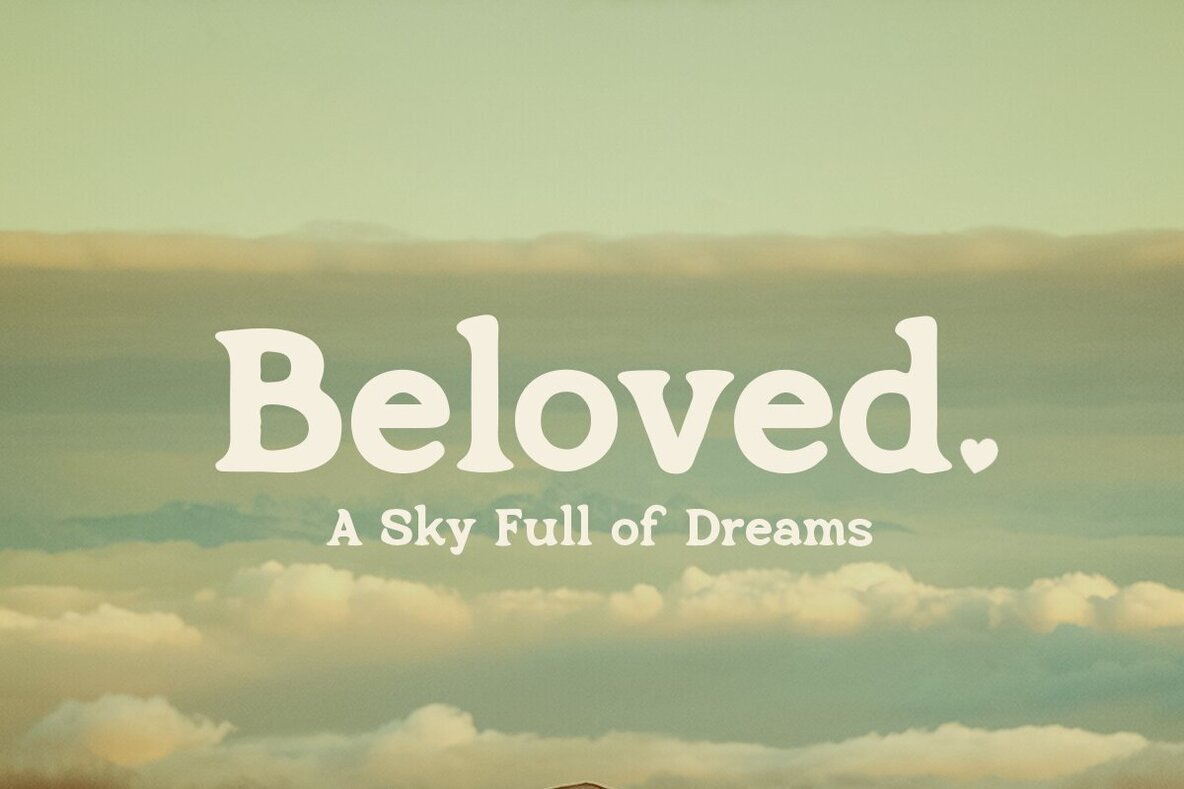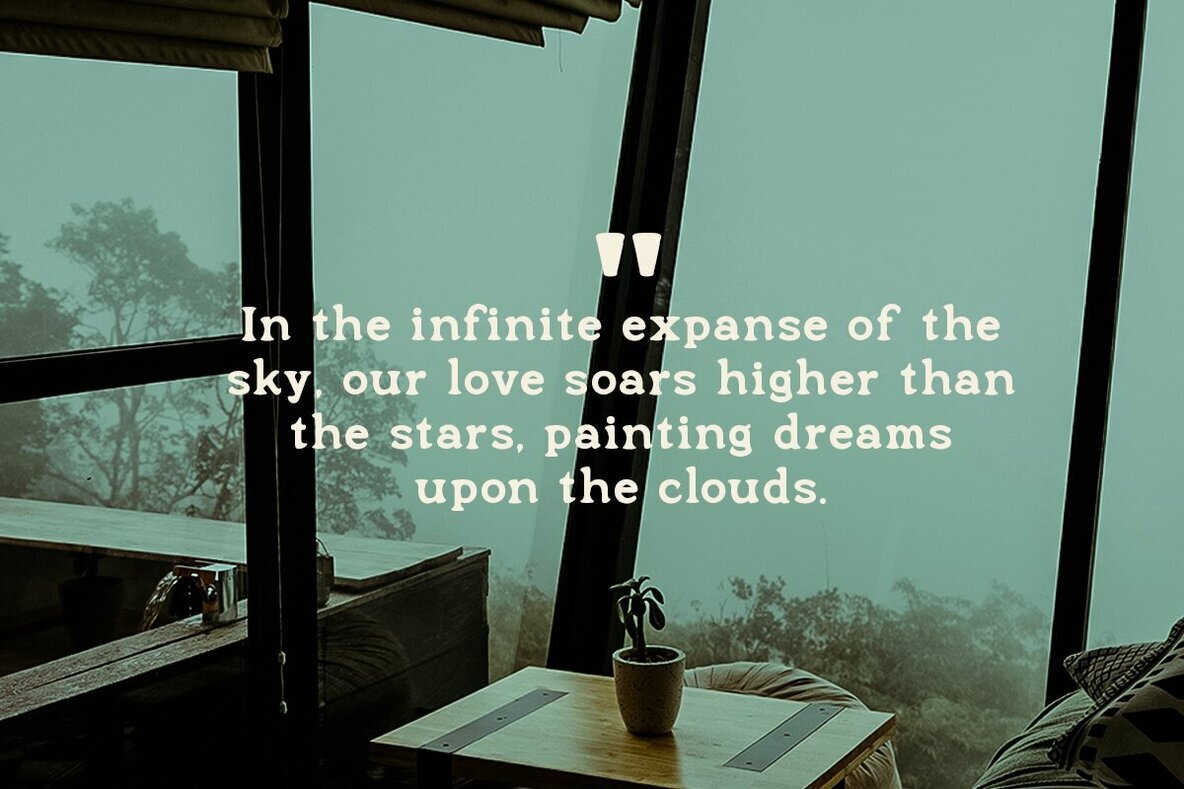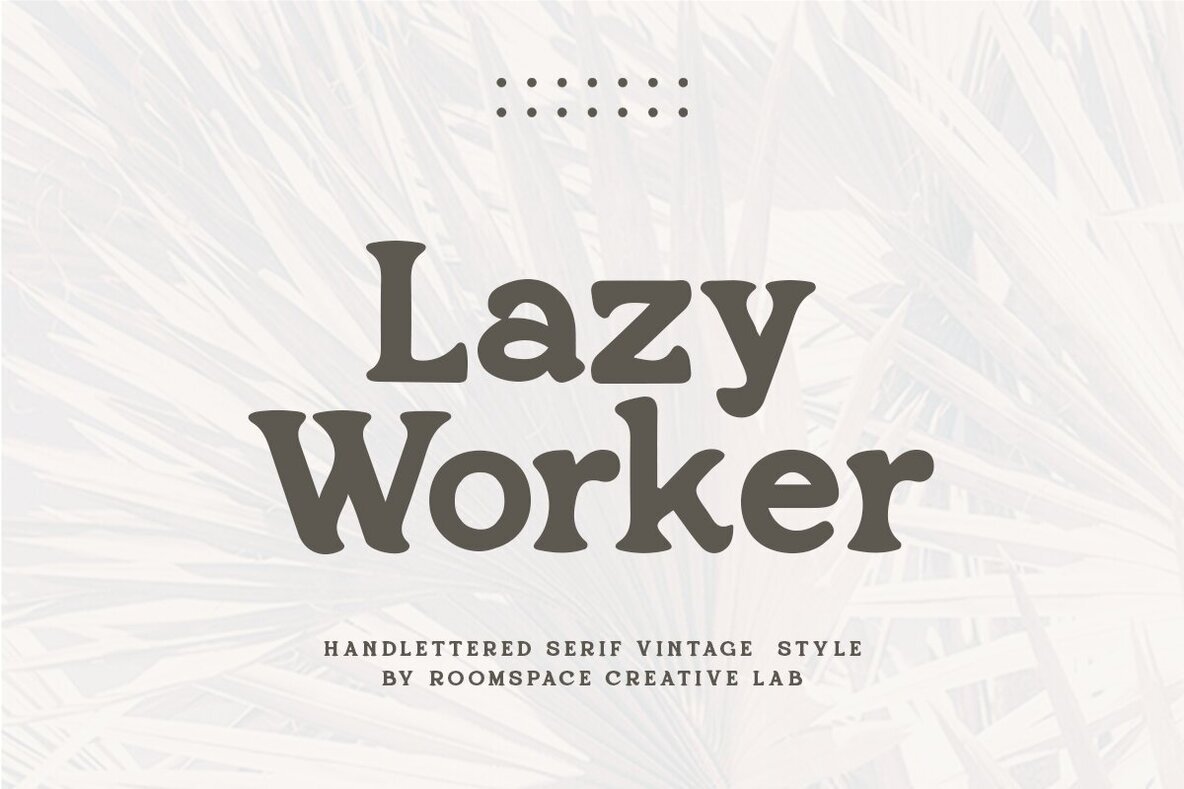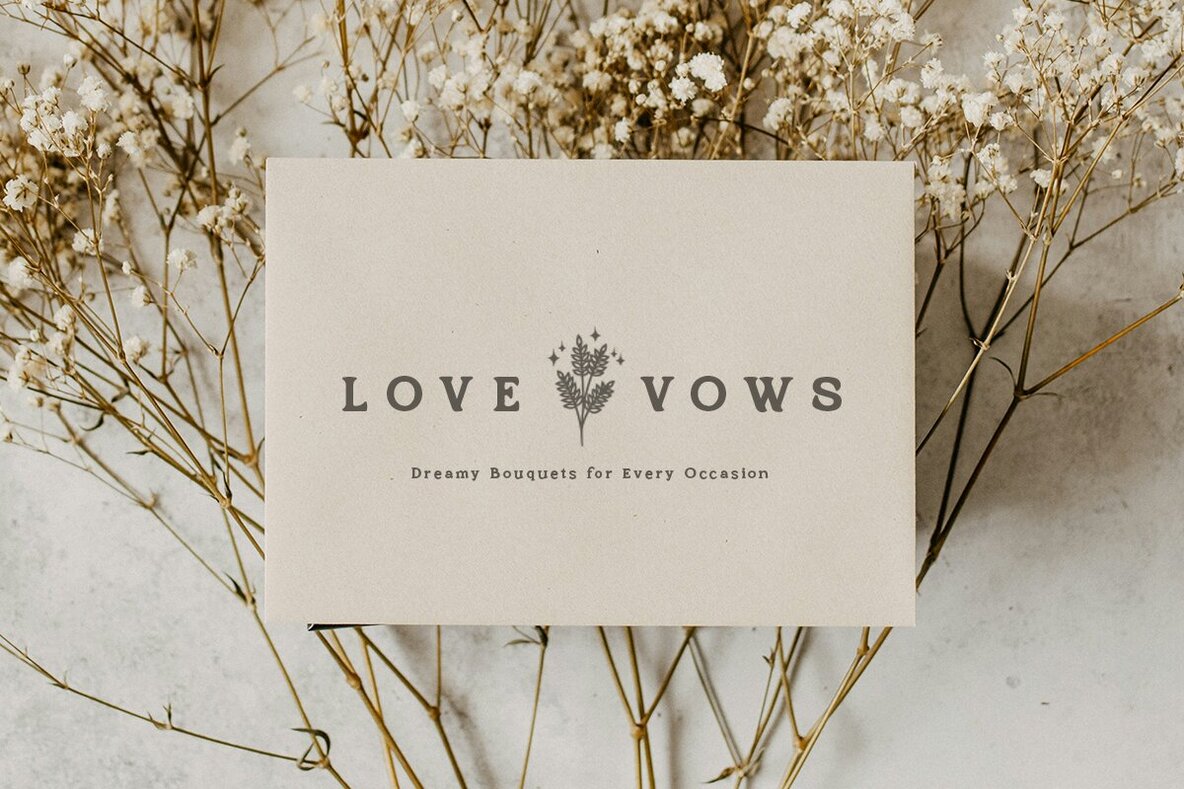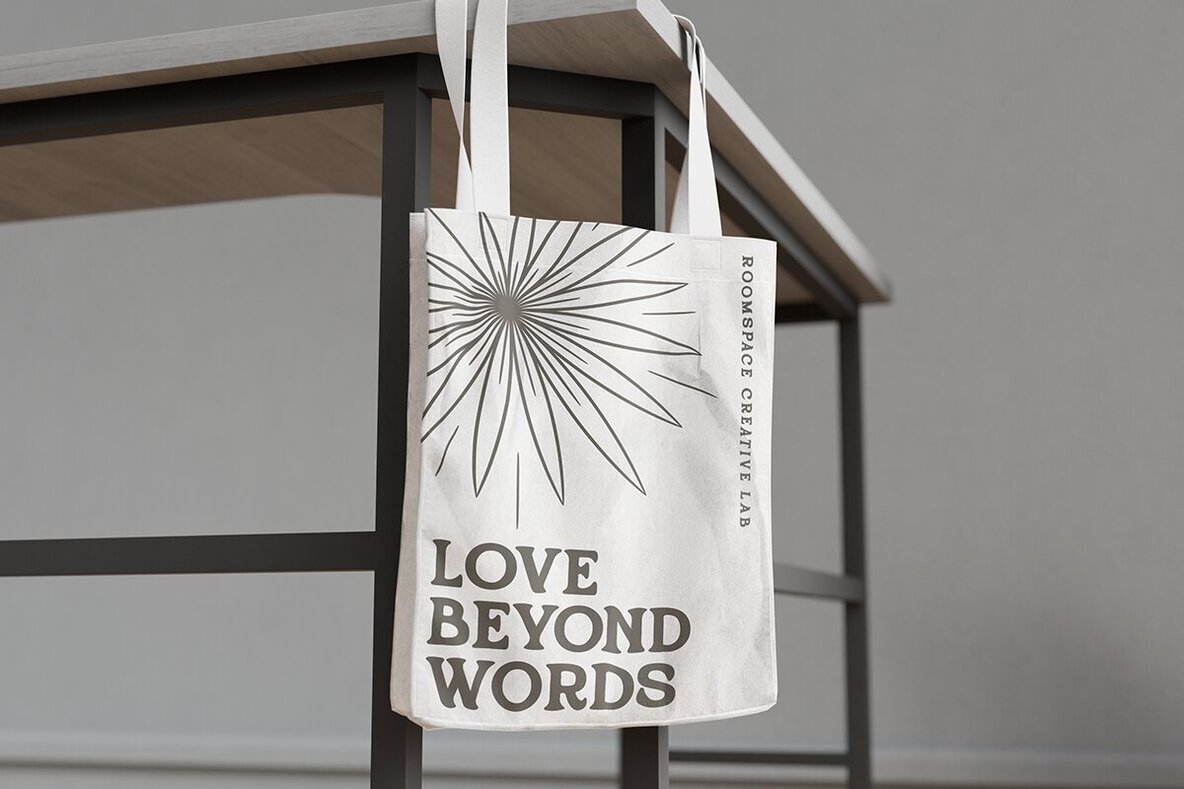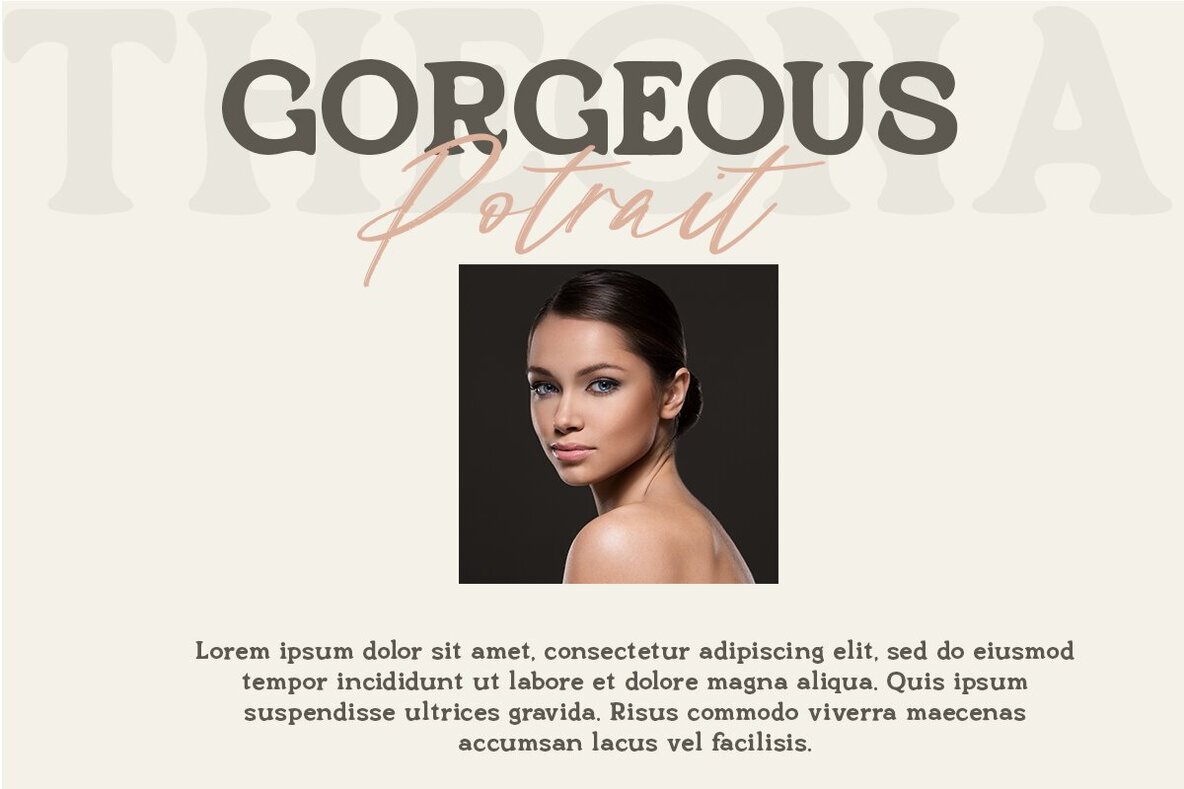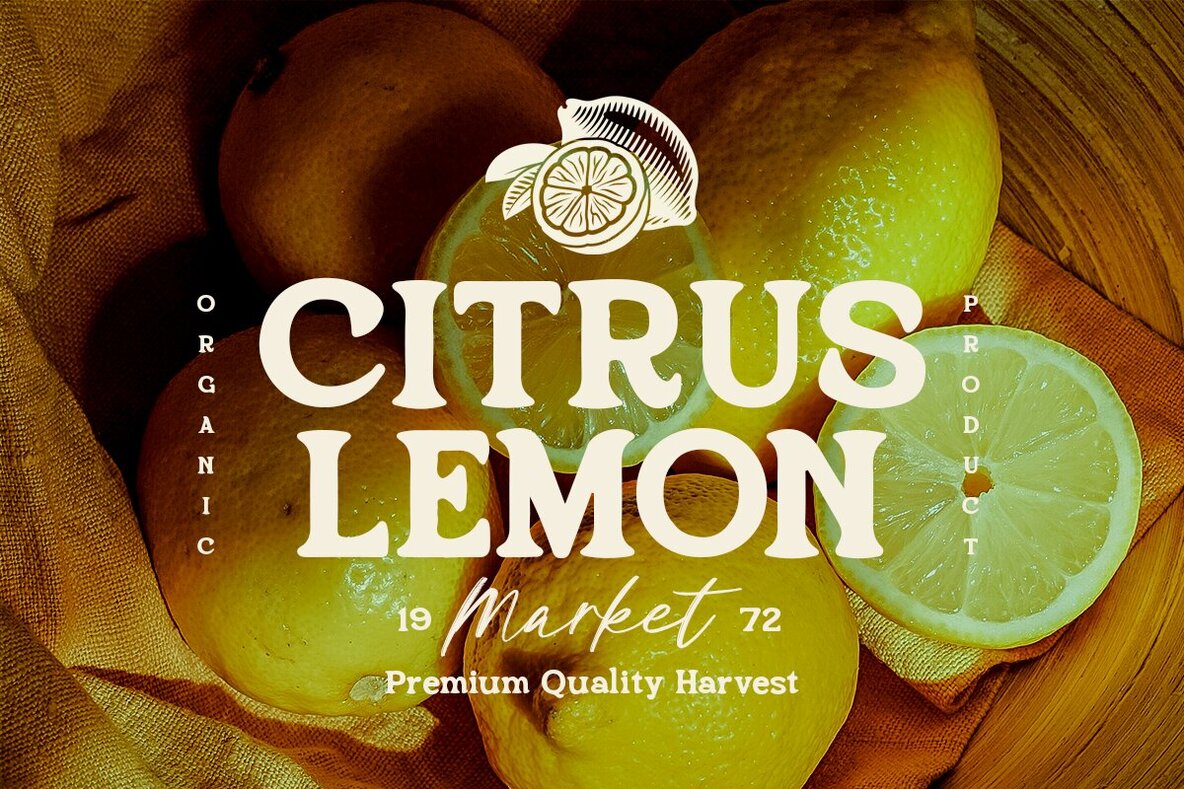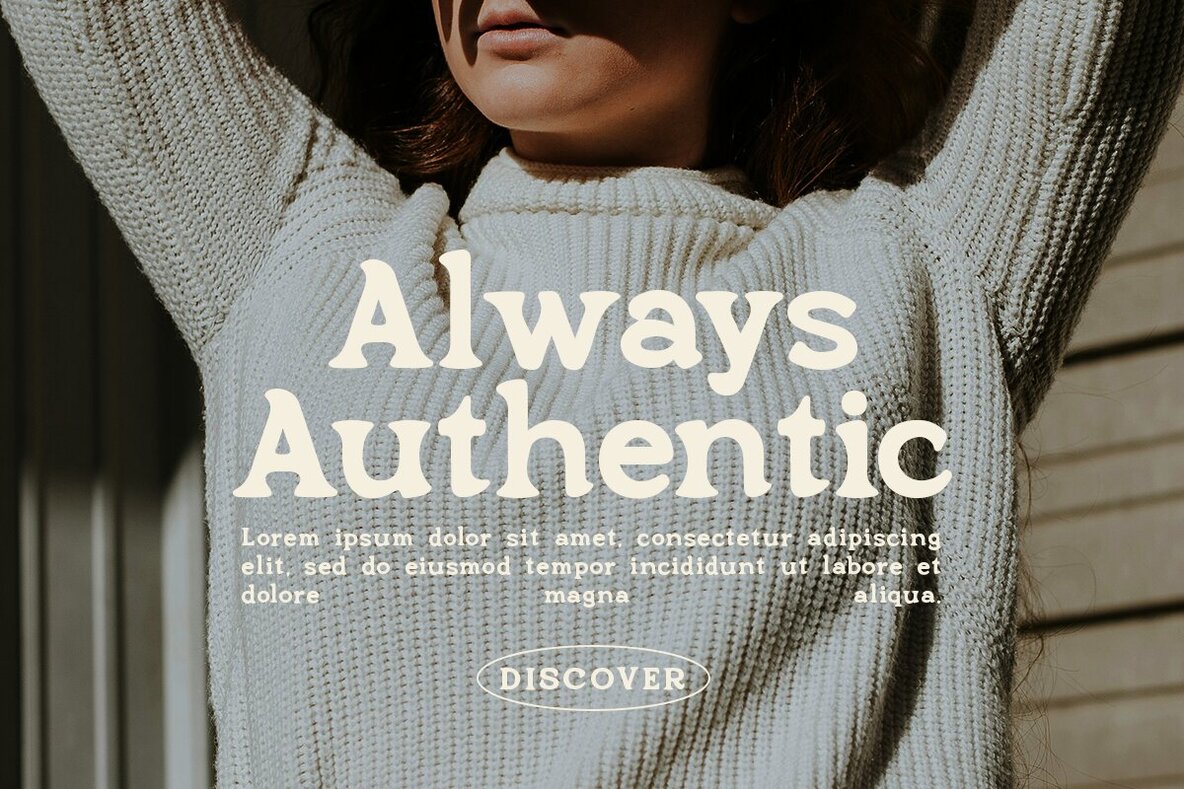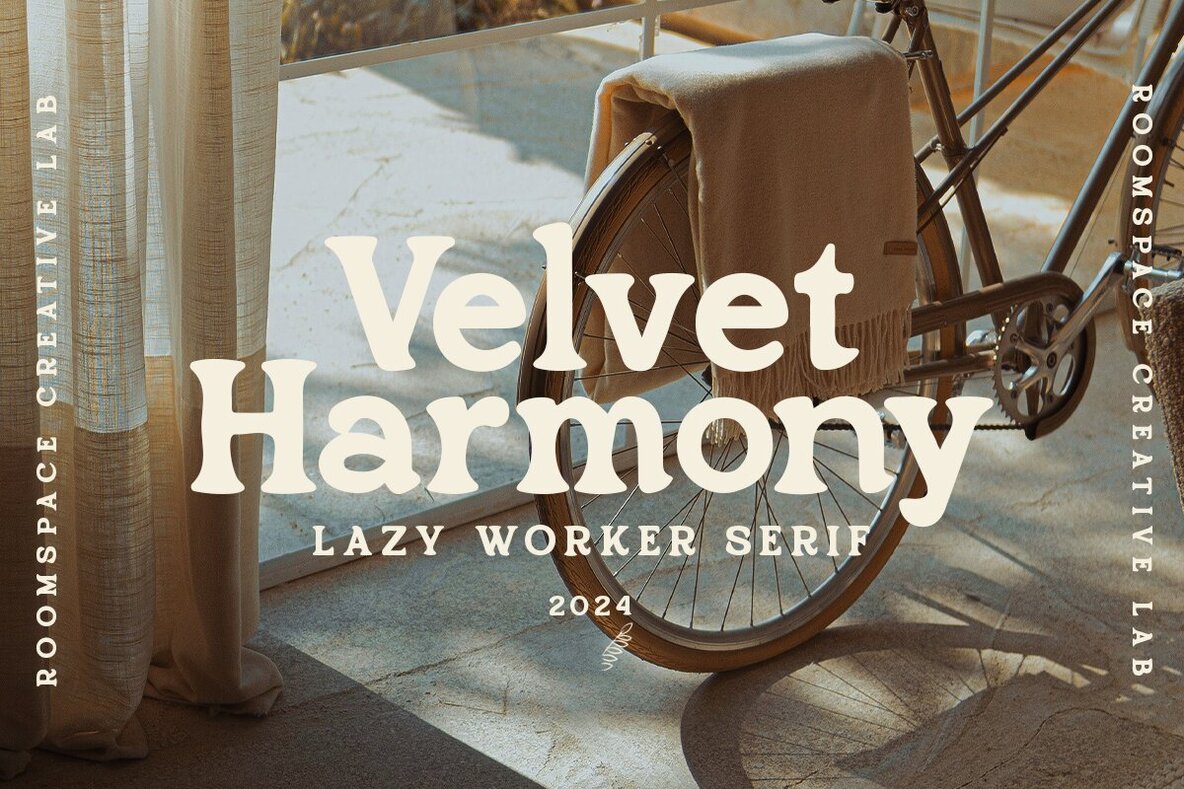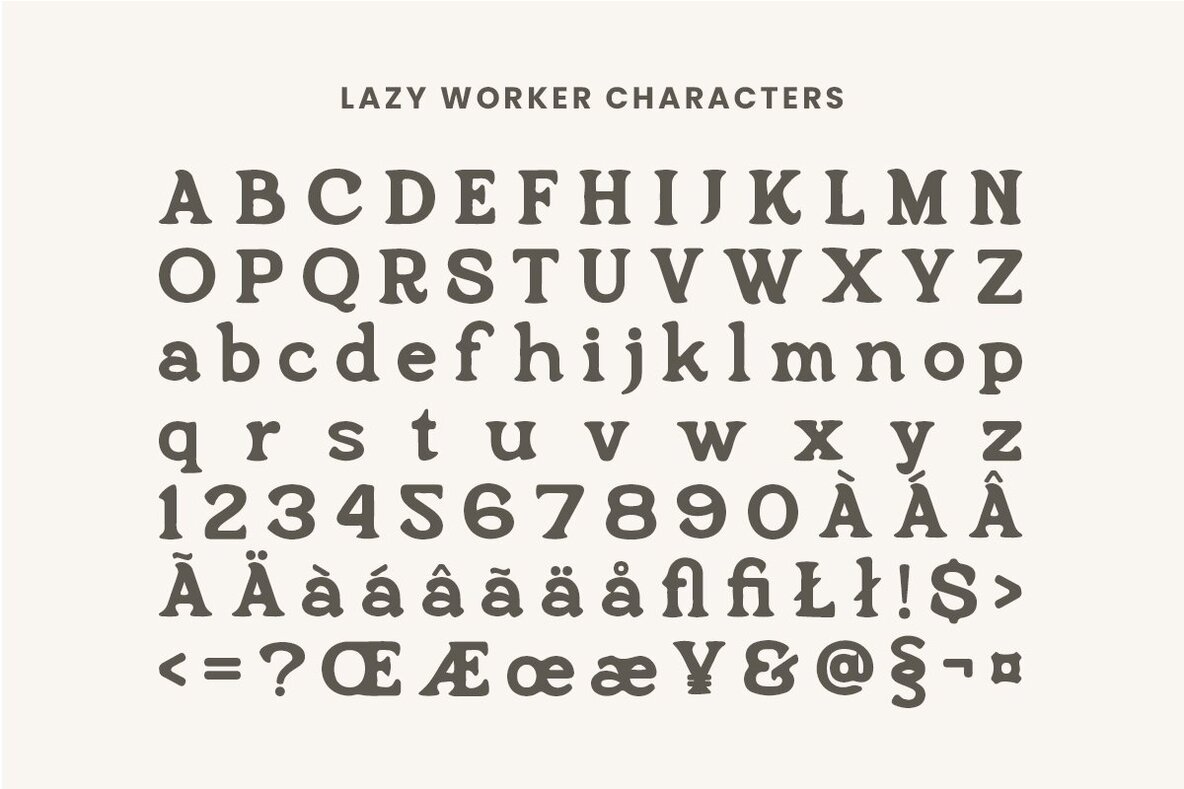
Lazy Worker Font
Lazy Worker
Lazy Worker is a unique handwritten serif font that beautifully merges modern and retro aesthetics. Meticulously crafted by hand, it adds a personal touch to your design projects, making it an excellent choice for branding, posters, invitations, and web designs. With a distinct hand-drawn style and elegant serif structure, Lazy Worker ensures your work stands out with charm and sophistication. This versatile and adaptable font provides a stylish solution for various creative endeavors. Embrace the modern retro vibe with Lazy Worker and enhance your projects with its captivating appeal. It offers the perfect balance of artistic expression and professional quality, suitable for graphic designers, brand creators, or anyone looking to add a unique flair to their work. Its handcrafted design and distinctive character make it an ideal choice for those seeking a trendy and timeless font.Lazy Worker: Handwritten Serif Font